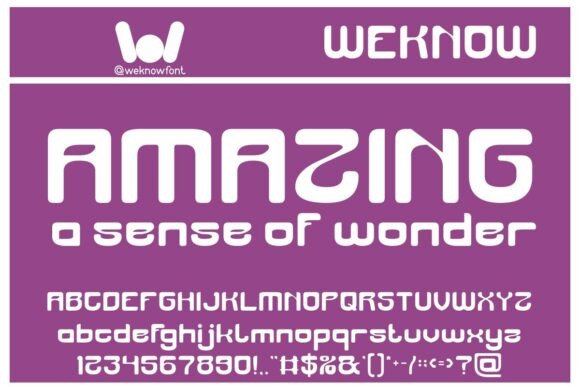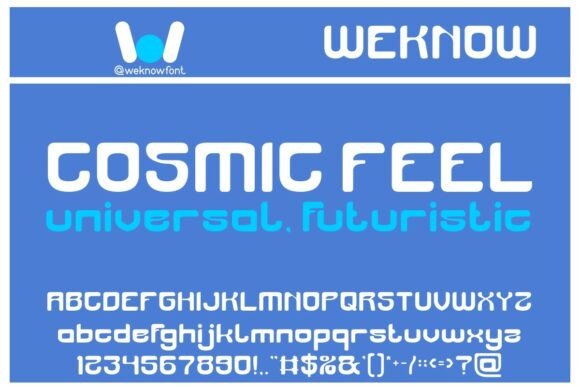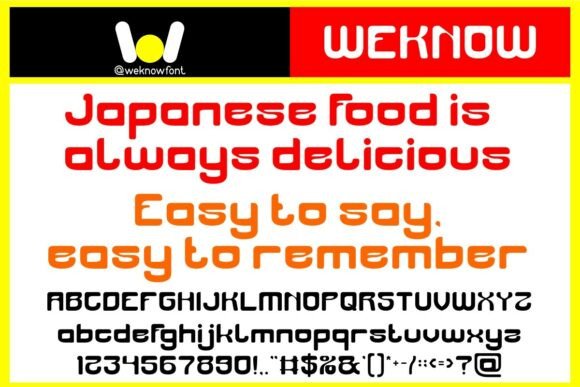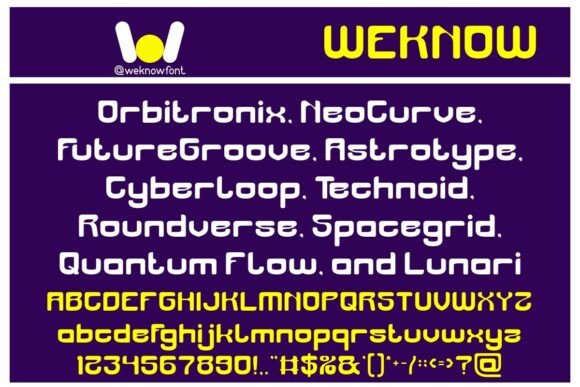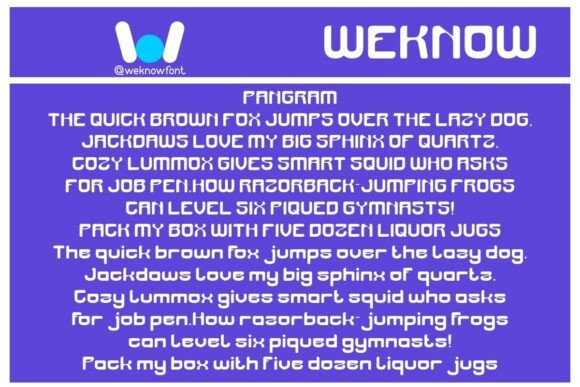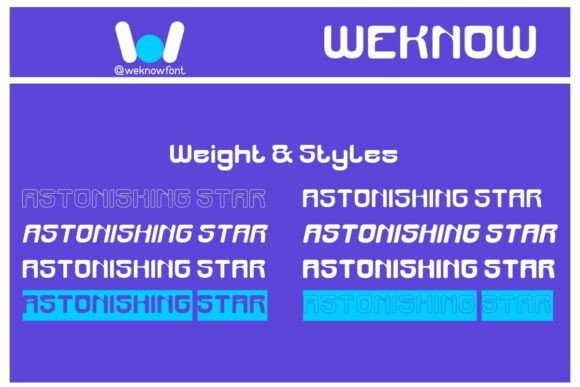
Astonishing Star Font: Elevate Your Designs with a Futuristic Twist
In the realm of typography, fonts play a pivotal role in shaping the visual identity of a project. Whether you’re a designer, craftsperson, or digital content creator, the right font can elevate your work from ordinary to extraordinary. Introducing “Astonishing Star,” a revolutionary font that embodies the essence of futurism with a blend of techno and sci-fi elements. This bold and rounded display font is not just a typeface; it’s an imaginative tool designed to redefine the aesthetics of your creative pieces.
The Genesis of Astonishing Star
Astonishing Star is born out of a desire to merge the nostalgia of retro designs with the forward-thinking elements of futuristic typography. Its design is inspired by the classic sci-fi and techno themes, making it an ideal choice for projects that require a visionary approach. The font’s rounded features soften its tech-savvy look, making it versatile for a wide range of applications, from digital media to print.
Key Features of Astonishing Star
- Bold and Rounded Design: The font’s boldness makes it highly legible, even at smaller sizes, while its rounded edges add a touch of friendliness and approachability.
- Retro-Inspired with a Futuristic Twist: Astonishing Star strikes a perfect balance between retro charm and futuristic appeal, making it suitable for projects that demand a unique visual statement.
- High Versatility: From fashion designs and posters to music and movie projects, this font adapts seamlessly to various creative fields.
- Ease of Use: Designed to be user-friendly, Astonishing Star can be easily integrated into your projects, regardless of your design experience.
Applications of Astonishing Star
The versatility of Astonishing Star makes it an invaluable asset for designers and crafters across multiple platforms. Here are some of the areas where this font truly shines:
1. Fashion Designs
In the competitive world of fashion, branding is everything. Astonishing Star can give your fashion label a distinctive edge, setting it apart in a crowded marketplace. Its futuristic vibe is perfect for branding, logos, and even product packaging.
2. Posters and Advertising
For posters and advertising materials, impact is key. The bold and imaginative design of Astonishing Star ensures that your message grabs attention and leaves a lasting impression on viewers.
3. Music and Movie Projects
In the entertainment industry, visual aesthetics play a crucial role in storytelling. Use Astonishing Star to add a thematic touch to your movie titles, album covers, or promotional materials, capturing the essence of your project in a visually compelling way.
4. Digital Content Creation
For YouTube, Instagram, and website designing, a unique visual identity is crucial for standing out. Astonishing Star can help create engaging thumbnails, promotional posts, or website headers that resonate with your audience.
5. Magazines, Books, and Cartoons
Even in traditional mediums like magazines, books, and cartoons, Astonishing Star can add a modern flair. Use it for headings, titles, or even character dialogues to infuse a dynamic feel into your content.
Why Choose Astonishing Star?
In a sea of fonts, Astonishing Star stands out for several reasons:
- Uniqueness: It offers a fresh perspective on futuristic design, blending techno and sci-fi elements with a retro touch.
- Versatility: Its adaptability across various platforms and project types makes it a valuable addition to any creator’s toolkit.
- Impact: The font’s bold design ensures that your work commands attention, making it perfect for projects where you want to leave a strong visual impact.
Astonishing Star is more than just a font; it’s a creative partner that can elevate your designs to new heights. Its unique blend of retro and futuristic elements, combined with its versatility and impact, makes it an indispensable tool for designers and crafters. Whether you’re working on a digital project, a print design, or anything in between, Astonishing Star is poised to add that extra sparkle that transforms ordinary into extraordinary. Embrace the future of design with Astonishing Star and let your creativity shine like never before.